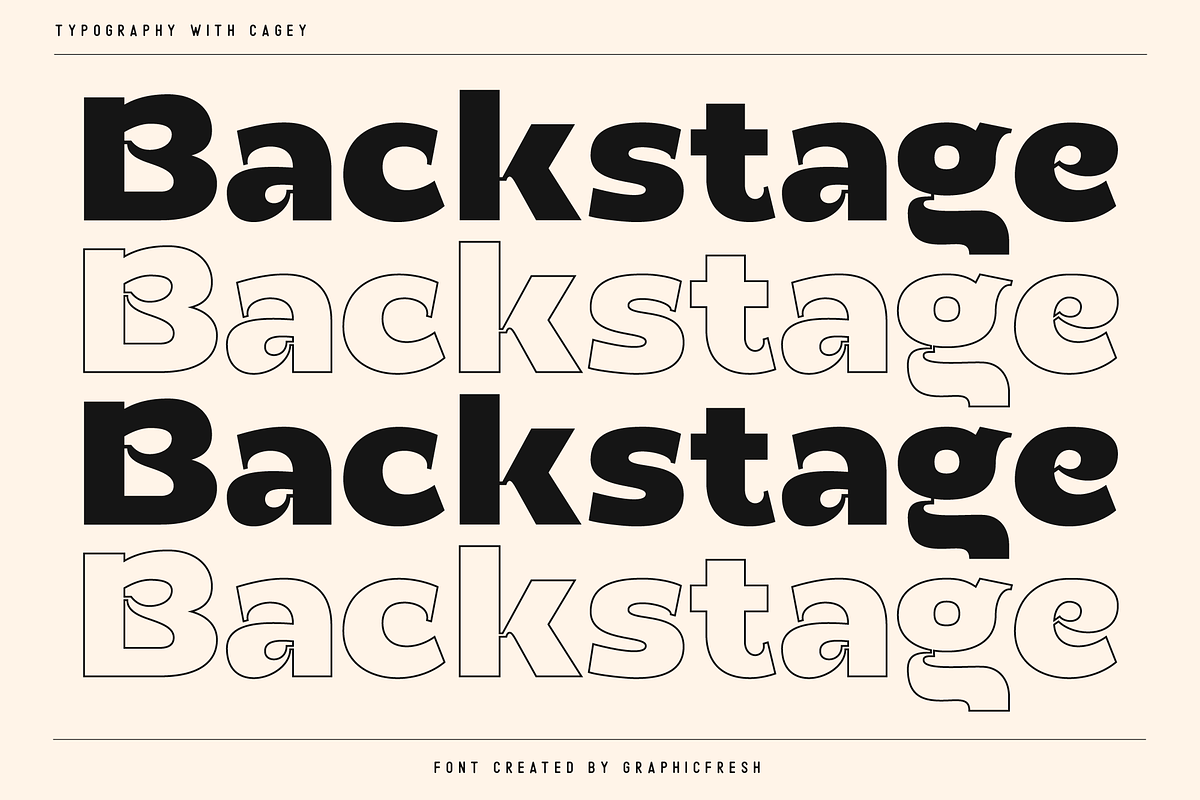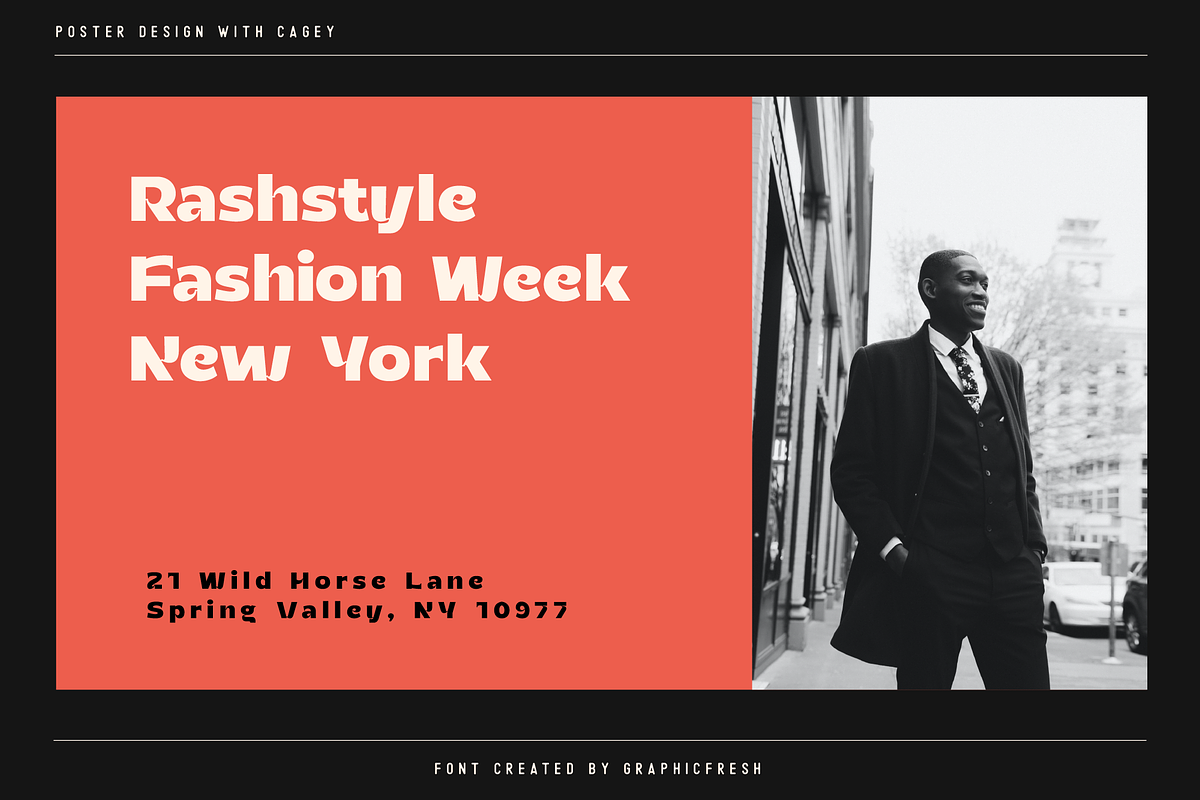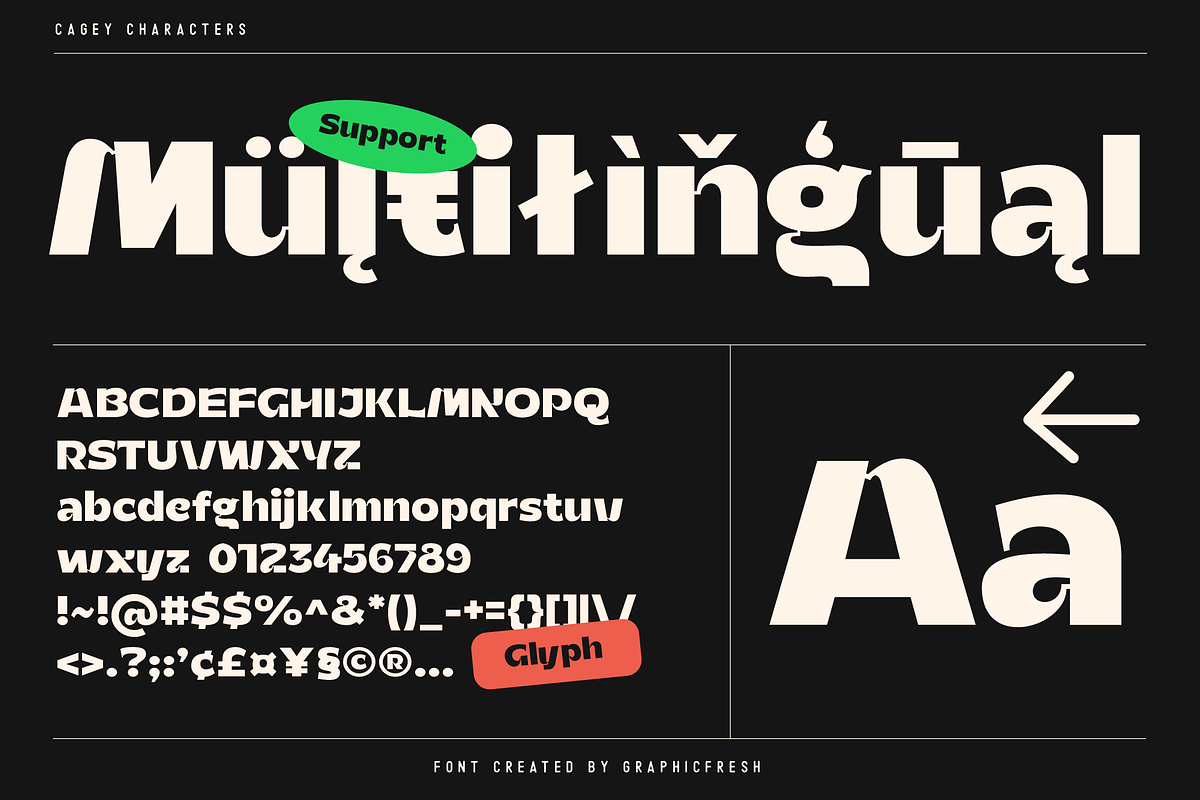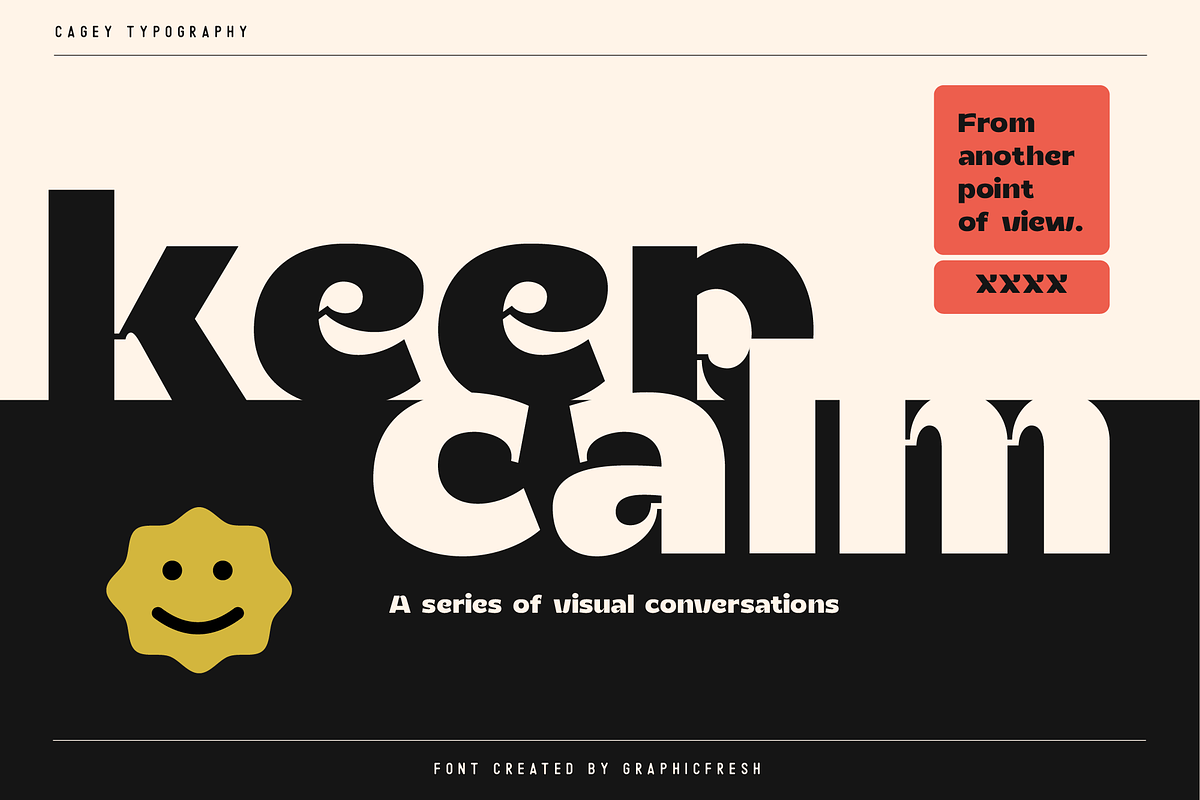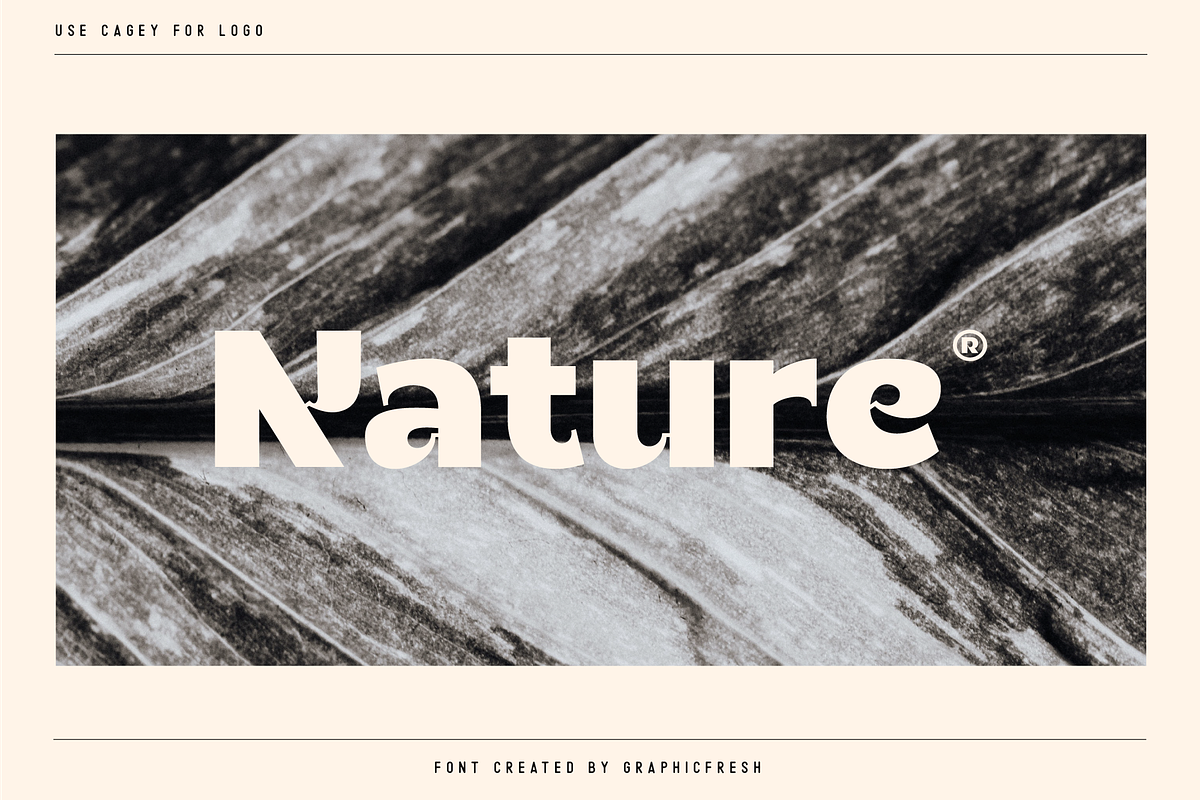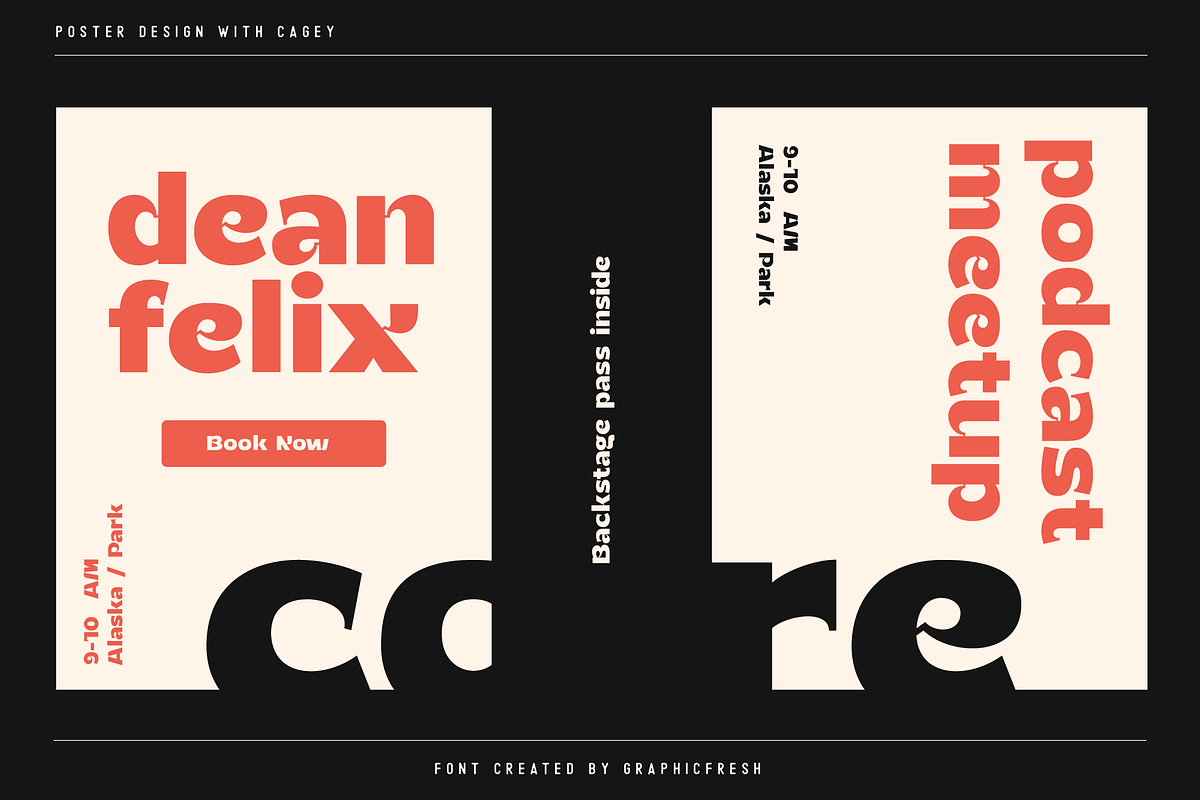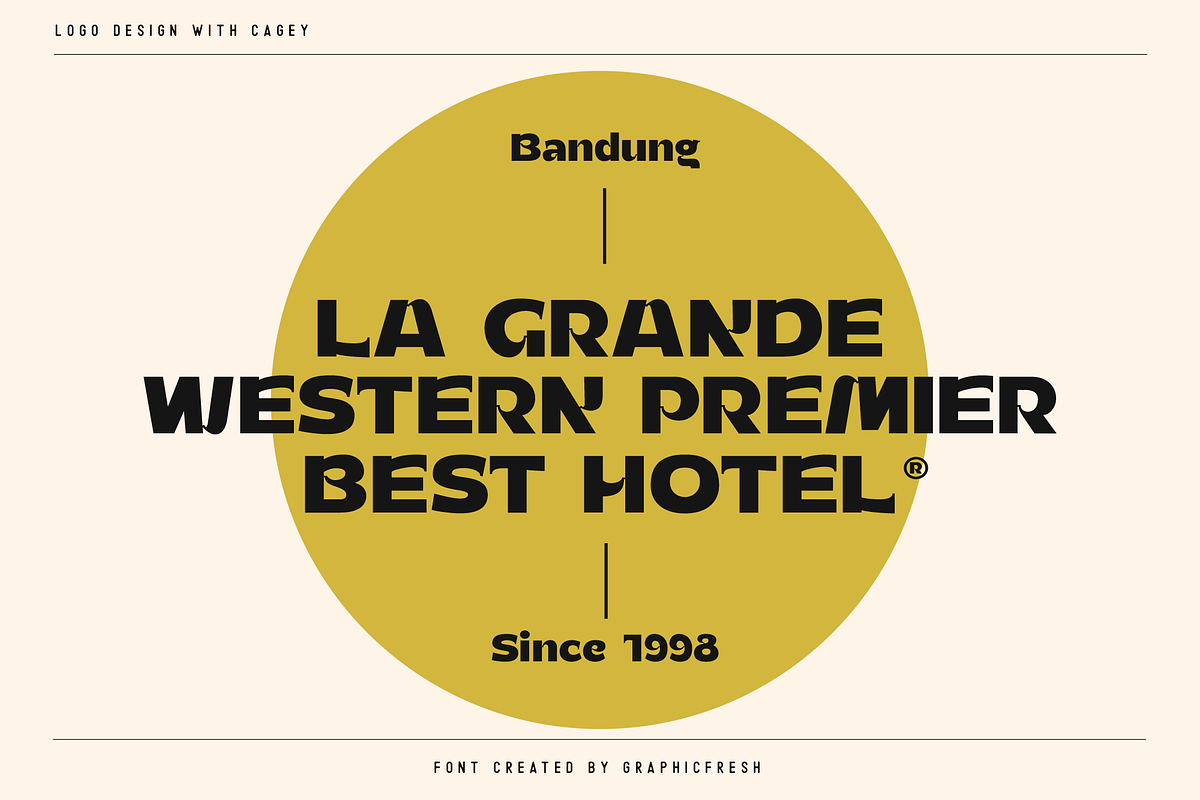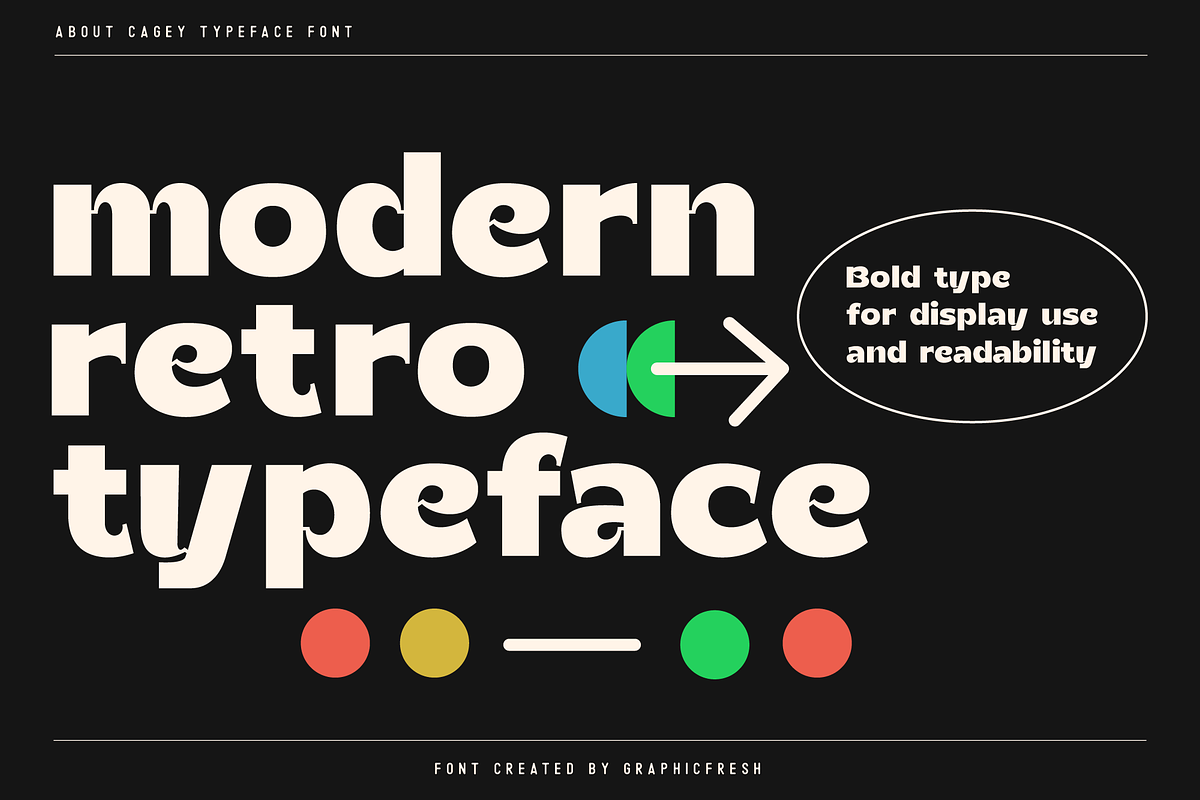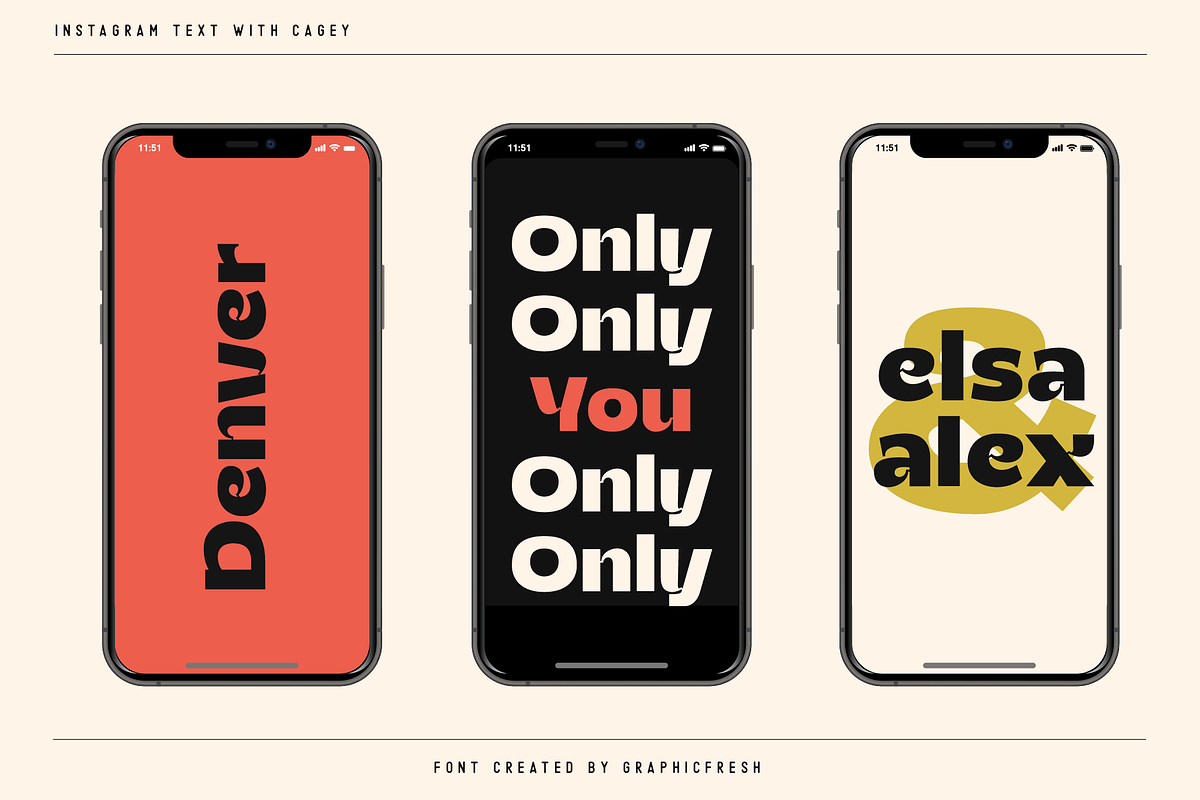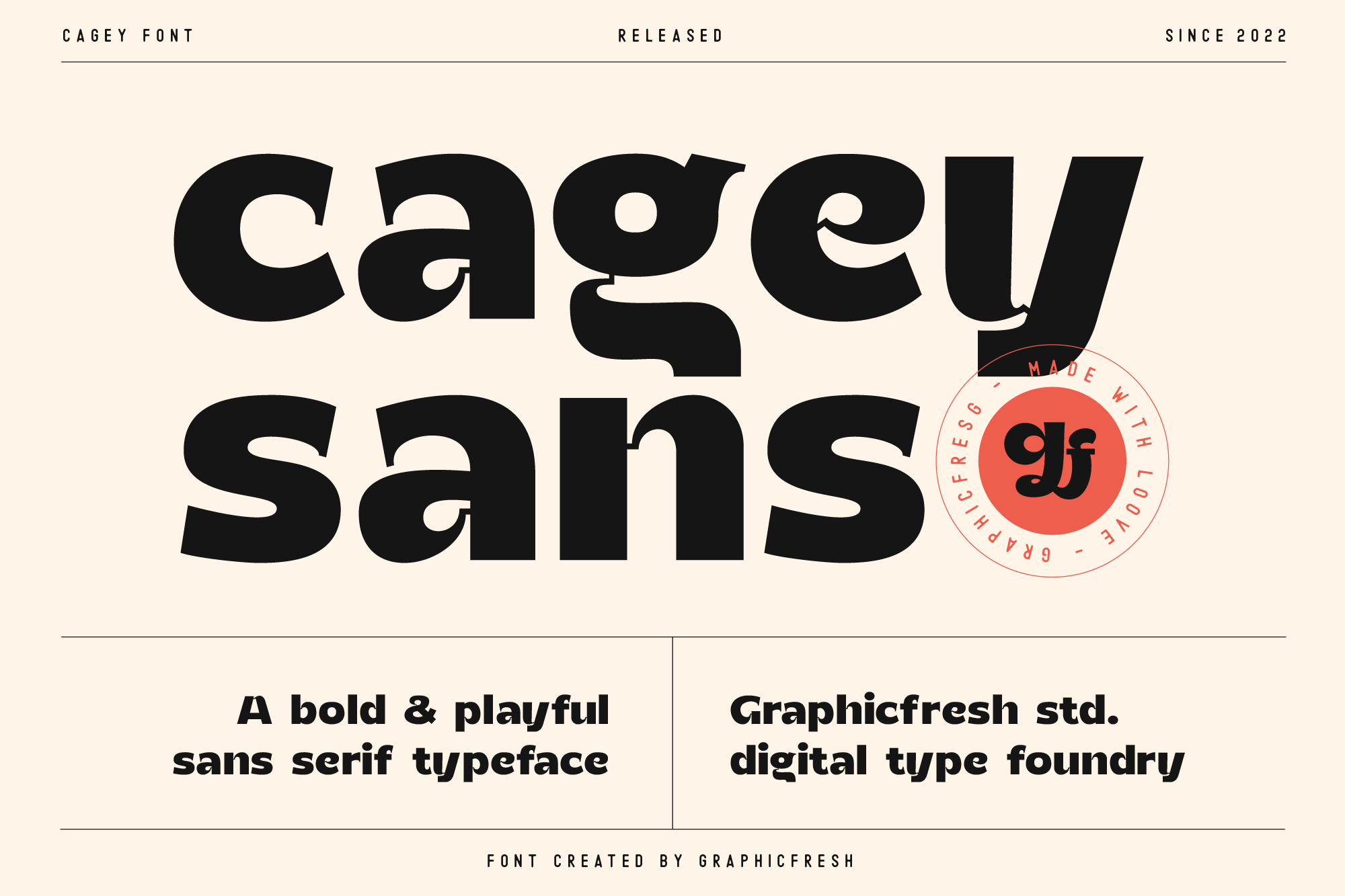
Cagey - The Bold Retro Font
I named this font cagey. Another picture of the ingenuity of the ancients when they found a masterpiece. Through this font, I want to reminisce and reminisce about the past. This font is synonymous with 70s or 80s style design visuals, Bold and strong. I hope you enjoy using this font and can come up with clever and brilliant ideas in your designs.